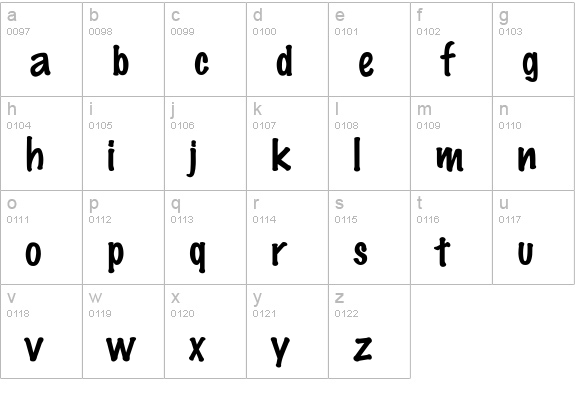
FeltMark Font Details
FeltMark font is a versatile and stylish typeface that exudes a sense of creativity and uniqueness. Its handcrafted appearance gives off a warm and inviting aesthetic, making it perfect for adding a personal touch to your designs. With its charming handmade feel, FeltMark font is ideal for projects that require a touch of whimsy and character. The best part? FeltMark font is completely free to download at FontsMarket.com. This means that you can easily access this delightful font for all your creative endeavors without any cost. Whether you're designing invitations, posters, or social media graphics, FeltMark font is sure to make your work stand out with its distinctive charm. Add a touch of handmade flair to your projects with FeltMark font, available for free download at FontsMarket.com. Let your creativity shine with this delightful and versatile typeface that is sure to bring a unique and charming element to your designs.